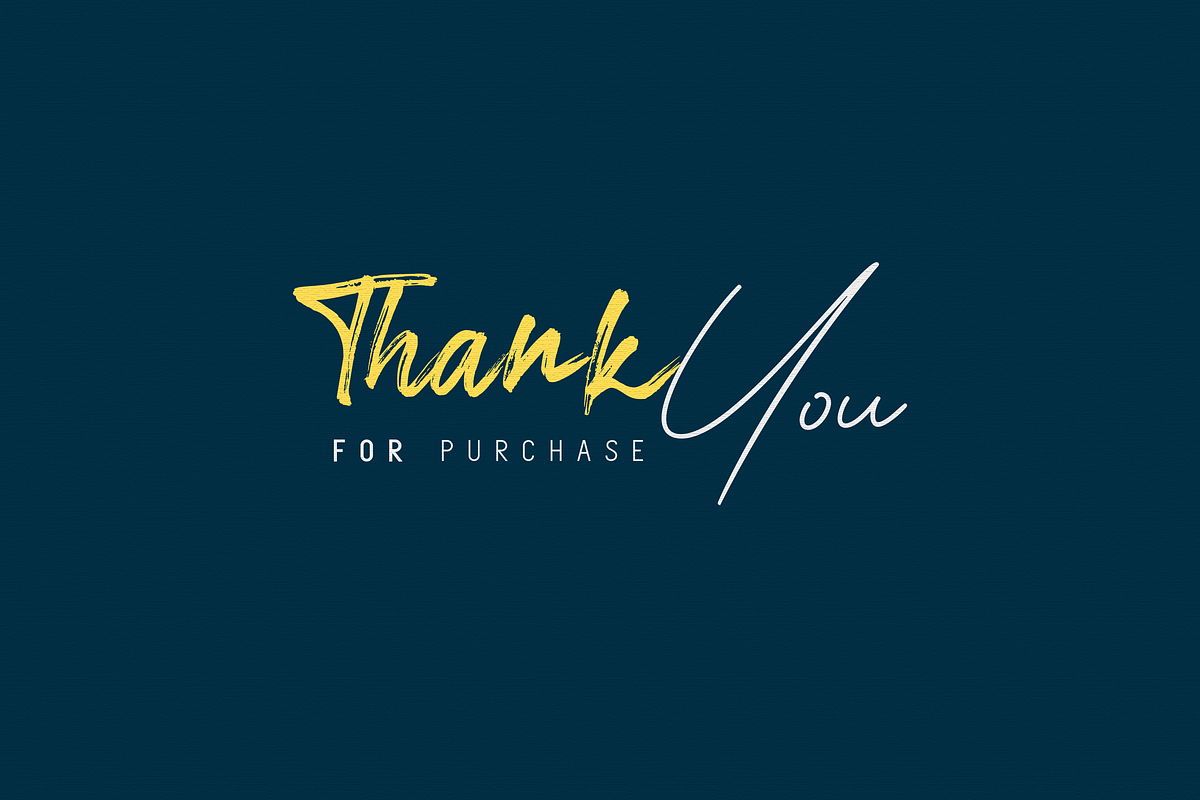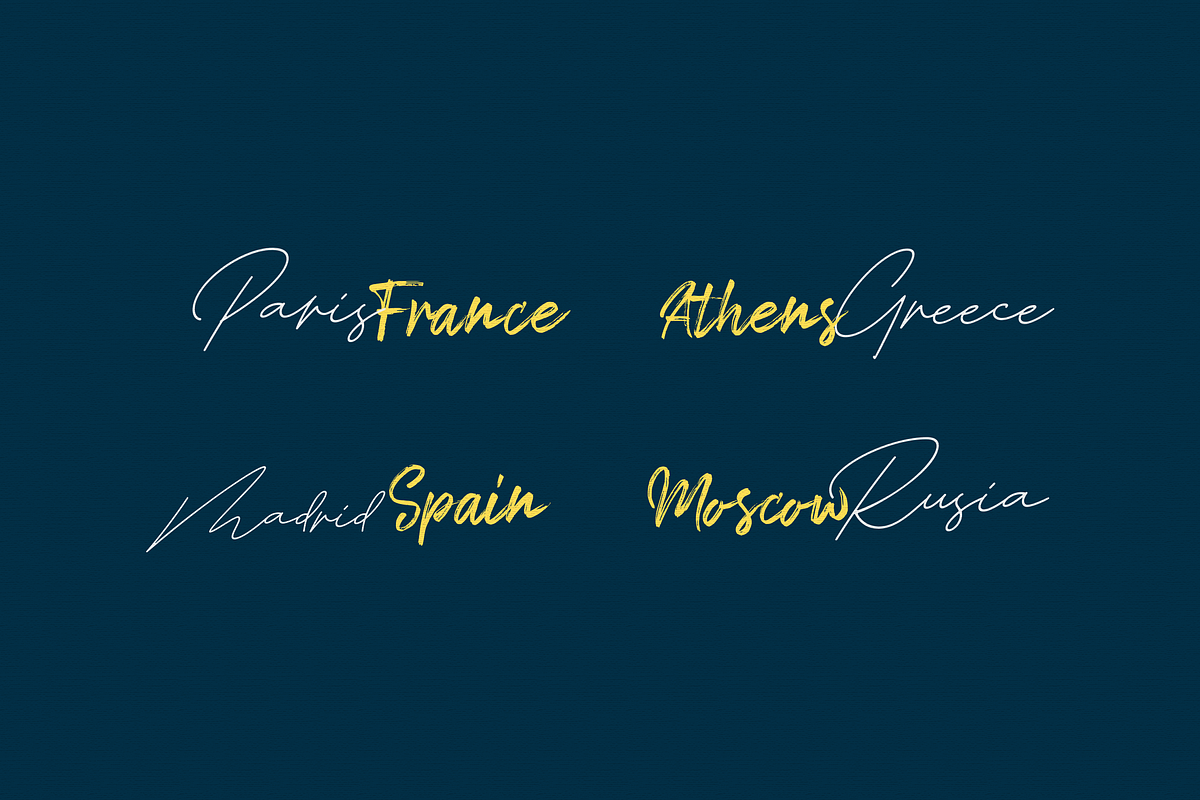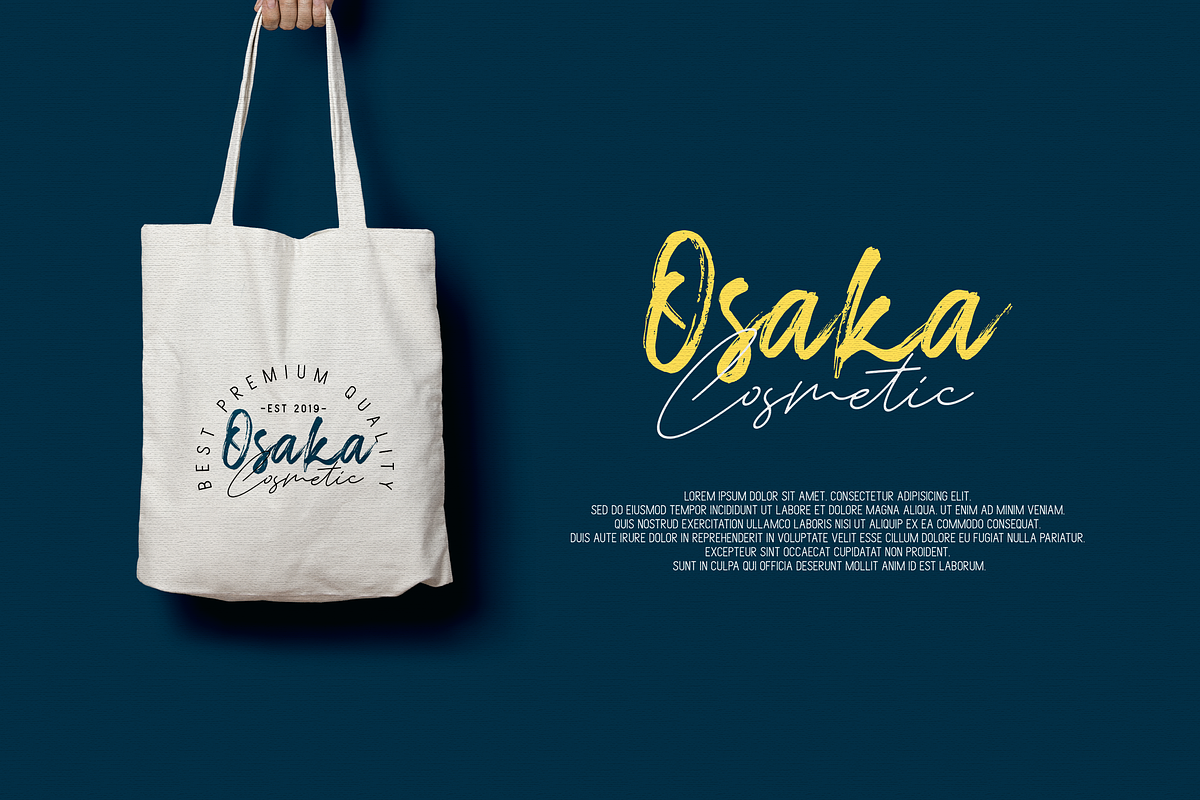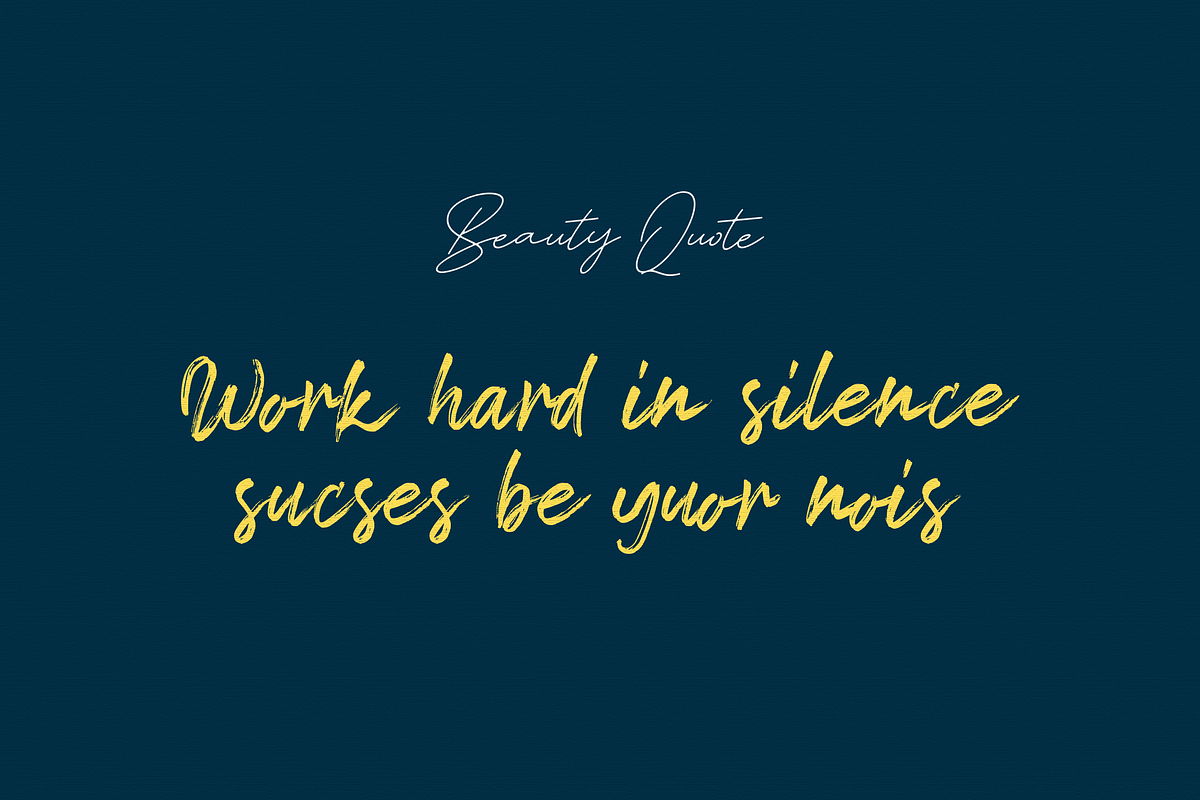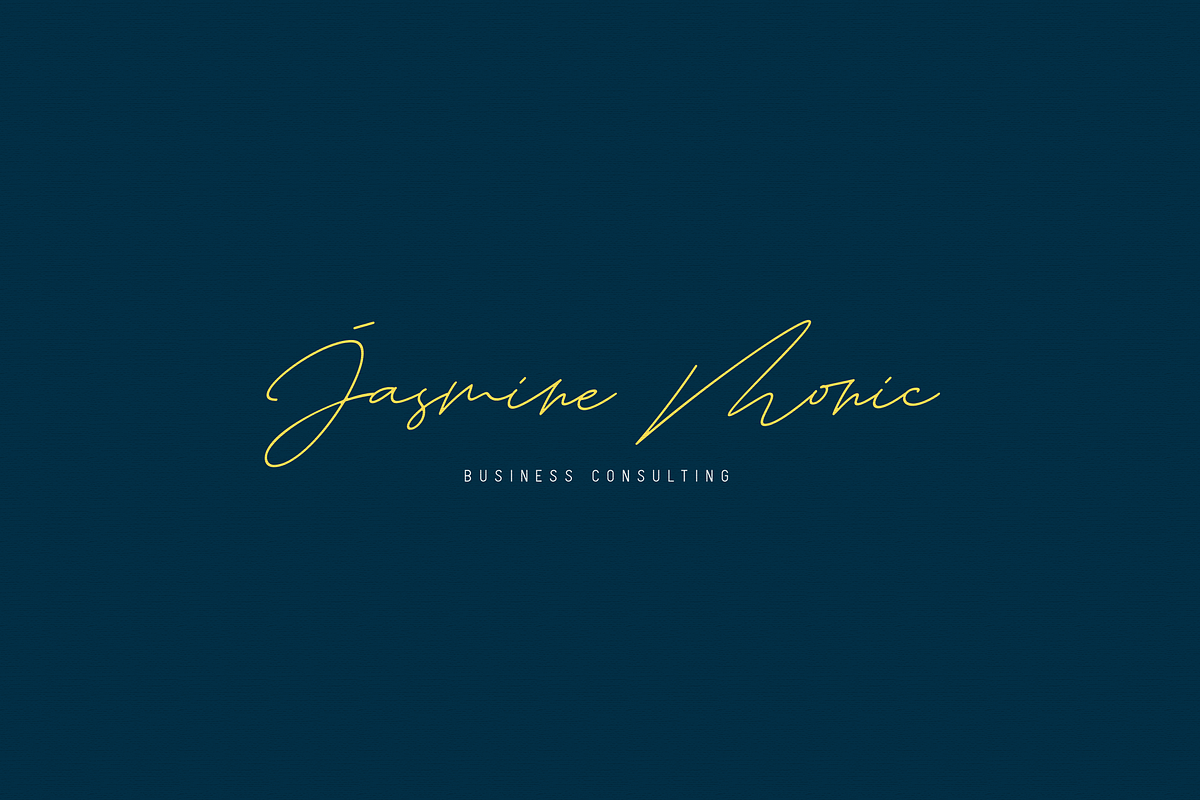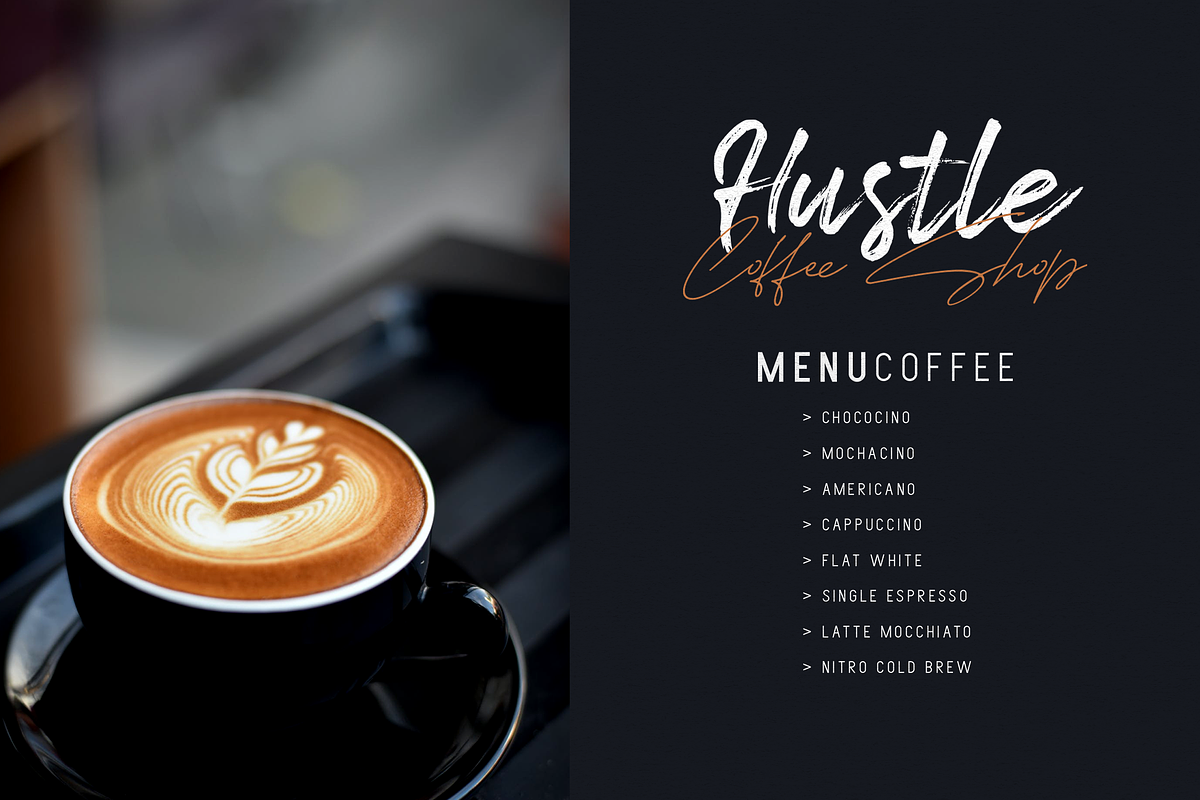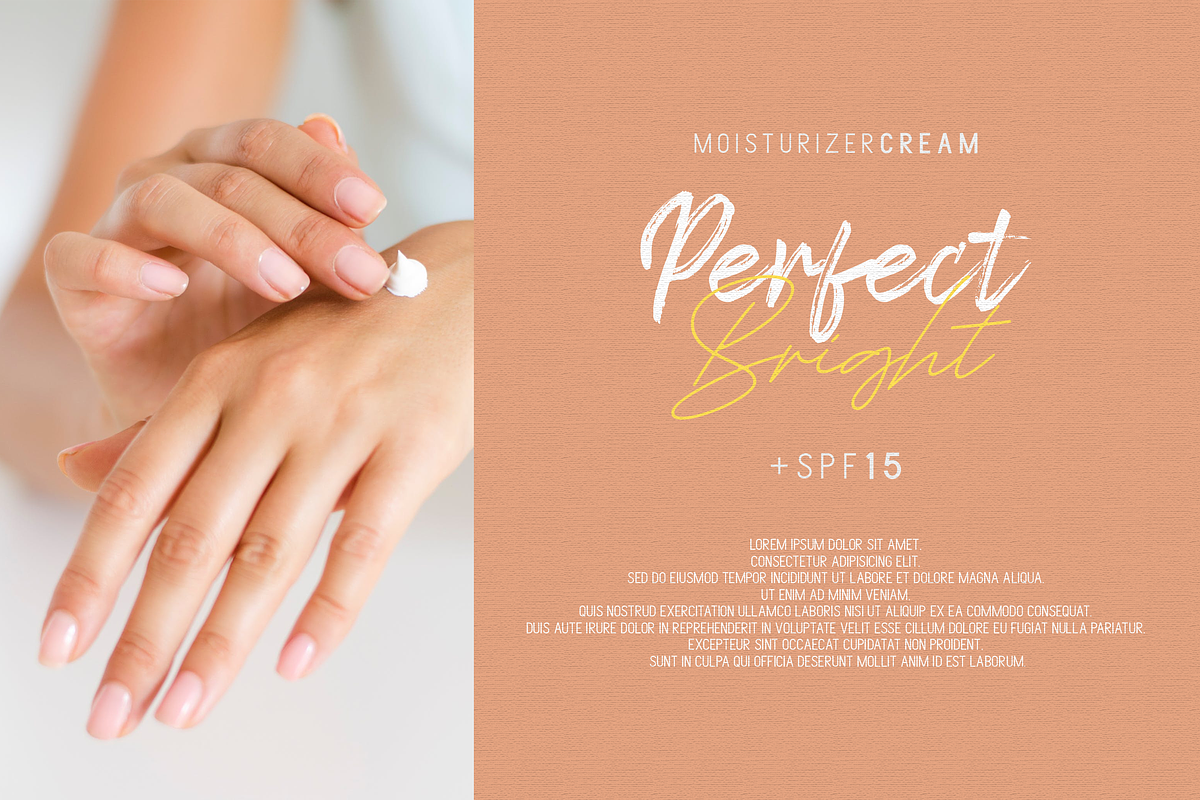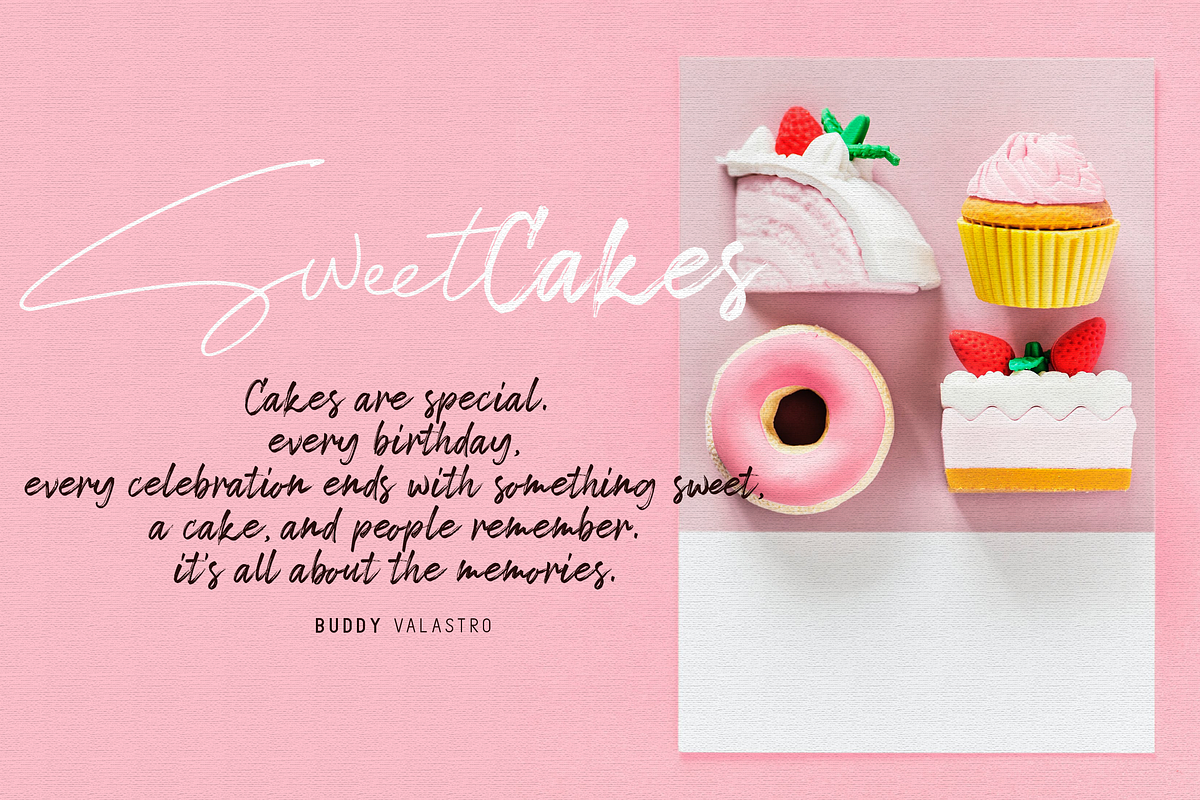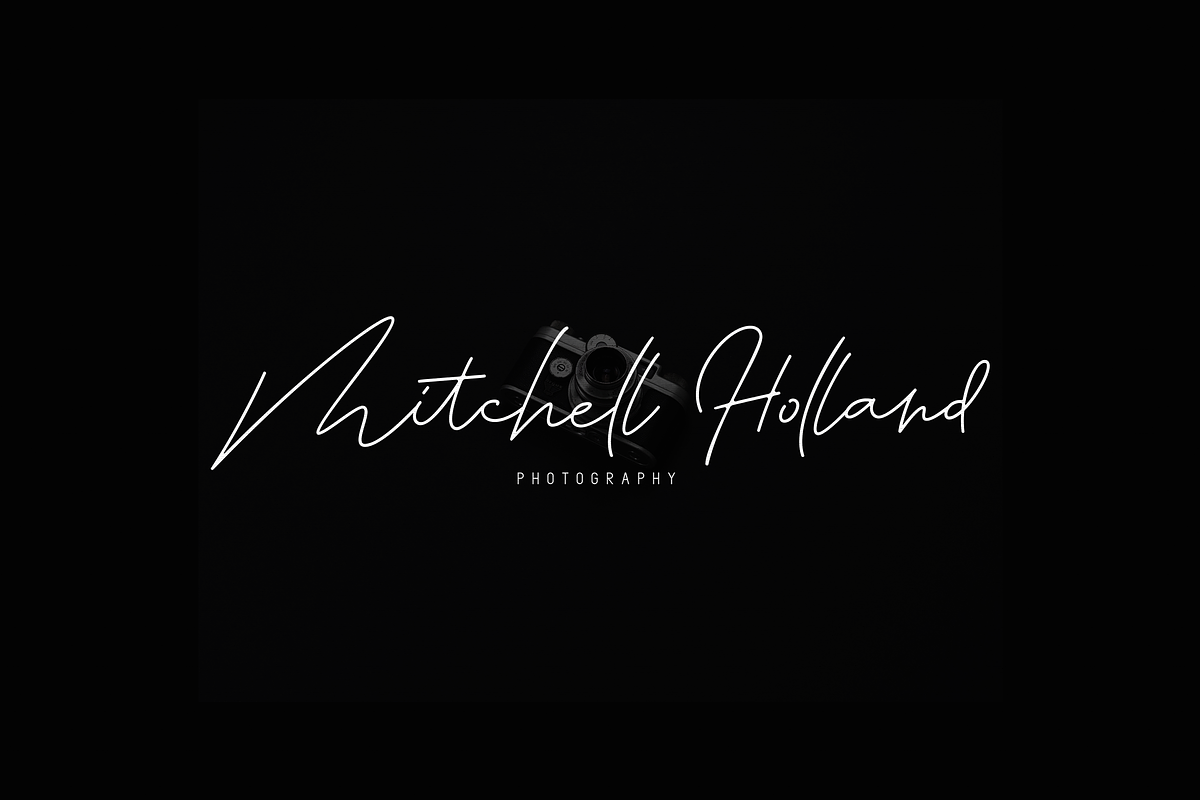
Tropical Summer // Font Combination
Tropical Summer is perfect combination of five fonts all your design project needs. Get inspired by its classy appearance!